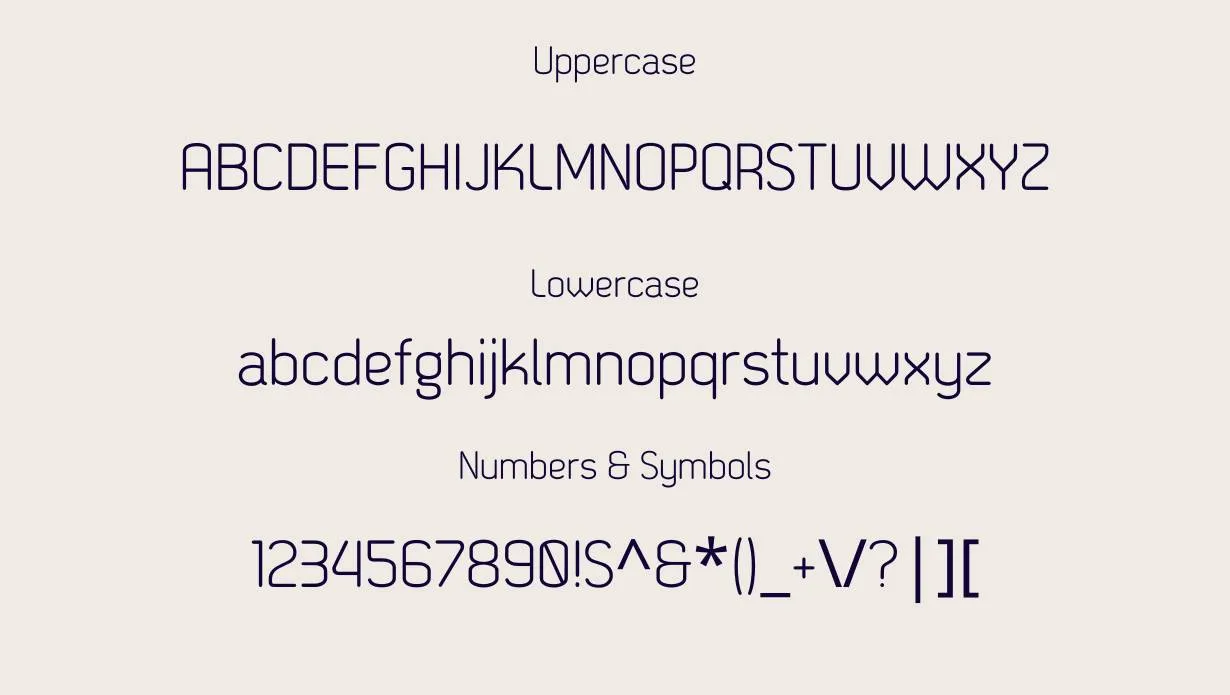
The Reona font is a versatile and engaging typeface often used in designs requiring a unique and dynamic touch. Its playful and slightly irregular letters make it perfect for conveying a vibrant and informal message. This font is commonly used in social media graphics, posters, or personal branding.
| Name | Reona Font |
| Designer | Rebekka Ivacson |
The weight of the Reona font varies from regular to bold, offering flexibility in emphasizing text. Its width is typically moderate, allowing for easy readability in various contexts, such as informal invitations or energetic promotional materials.